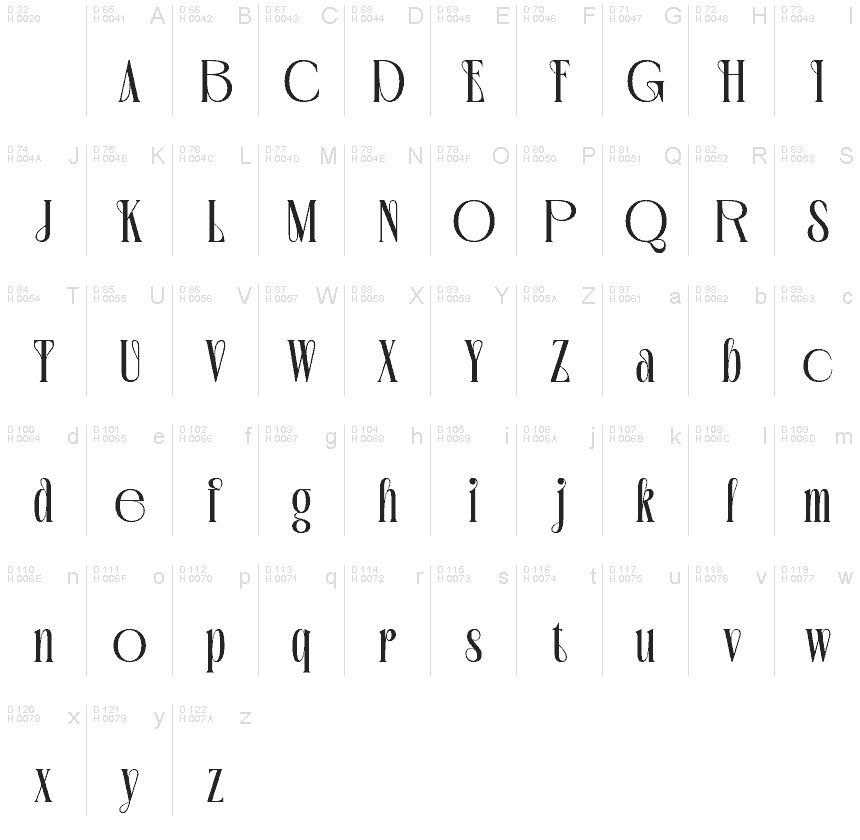
Revalyn Demo Regular
Revalyn font by Craft Supply Co is a skillfully created free serif font that radiates elegance. Its stylish curves and artistic flair bring contemporary finesse to any design project. Sleek, sophisticated, and creative, this condensed serif displays a timeless modern spirit built upon its geometric precision and readability.
Work with this serif in editorial publication designs, packaging designs, flyers, advertisements, branding projects including logos and business cards with a modern feel. You can also use it for texts on websites or social media headers that need to appear clean yet stylish.